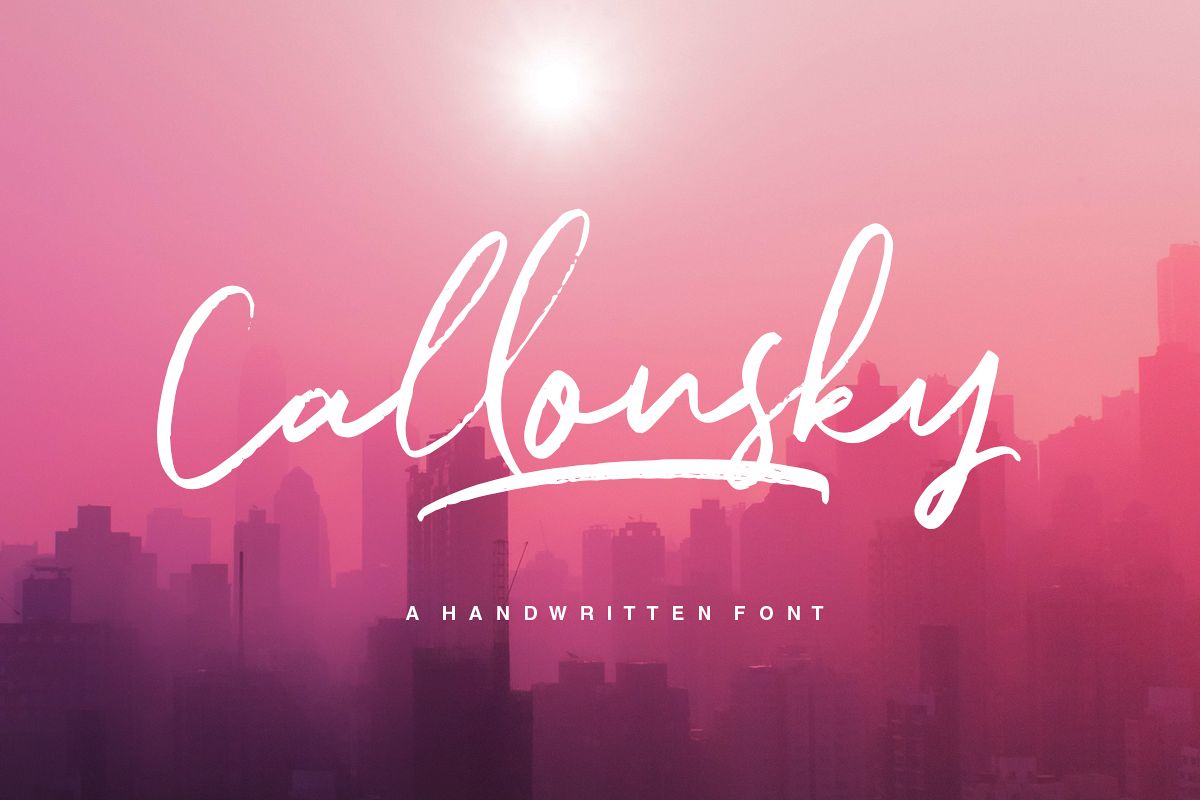
Callonsky Script
• to be used as logos, badges and labels. It has many opentype features such as ligature, stylistic alternate, contextual alternatives, swash, etc.